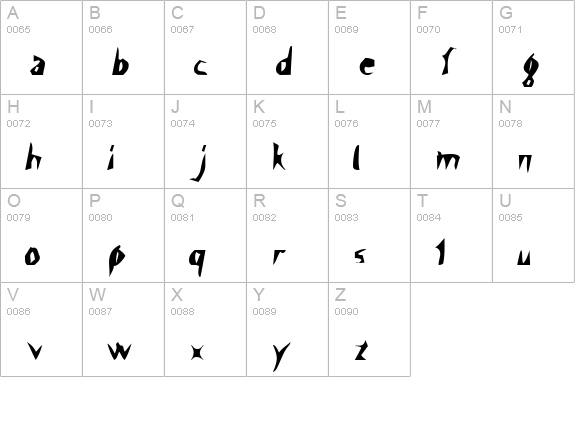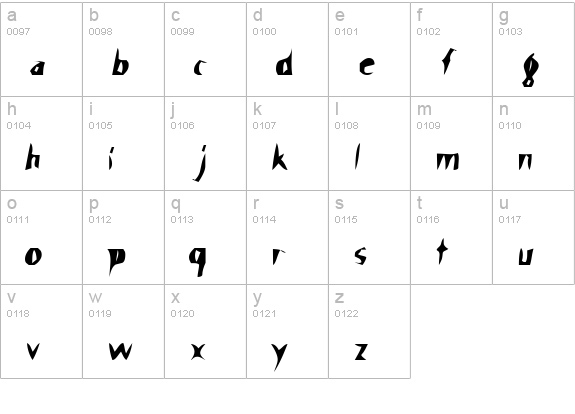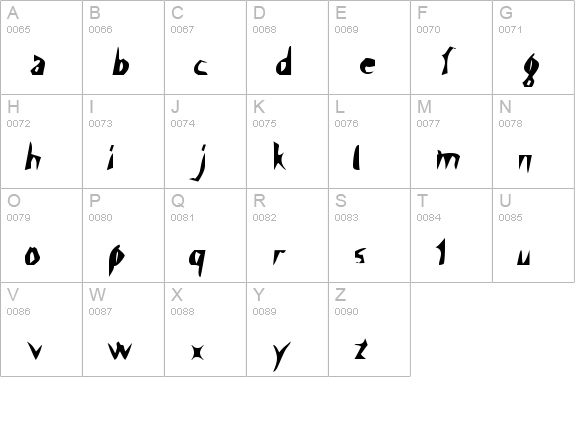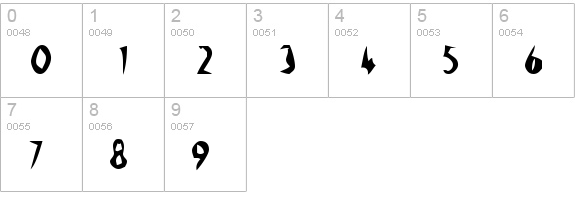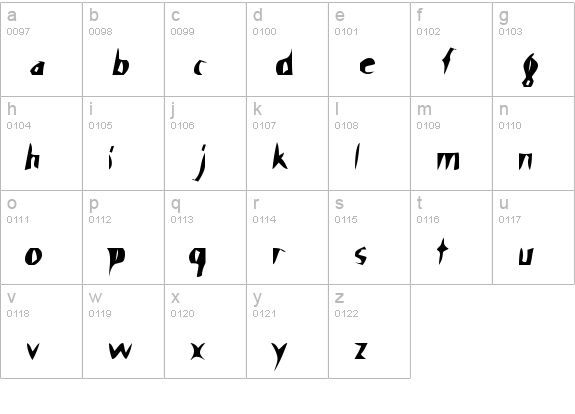
Scissor Cuts Font Details
Introducing Scissor Cuts, a captivating and versatile font that effortlessly combines elegance with a touch of edginess. This unique typeface is perfect for anyone seeking to make a bold statement with their design projects. Scissor Cuts features sharp, angular lines that resemble the precise cuts made by a pair of expertly wielded scissors. Its sleek and contemporary appearance adds a modern flair to any creative endeavor, whether it's a logo, branding, packaging, or editorial design. With its extensive character set, Scissor Cuts offers endless possibilities for customization. Its uppercase letters exude confidence and strength, while the lowercase letters provide a balance of refinement and accessibility. Additionally, the font includes a variety of alternate characters, ligatures, and swashes, allowing you to truly personalize your designs. What makes Scissor Cuts even more enticing is that it is freely available to download at FontsMarket.com. This means that you can effortlessly elevate your projects without breaking the bank. Whether you're a professional designer or an aspiring creative, Scissor Cuts is a valuable addition to your font collection. So, unleash your creativity and let Scissor Cuts bring a cutting-edge aesthetic to your designs. With its captivating style and the freedom to download it for free at FontsMarket.com, this font is sure to make a lasting impression.